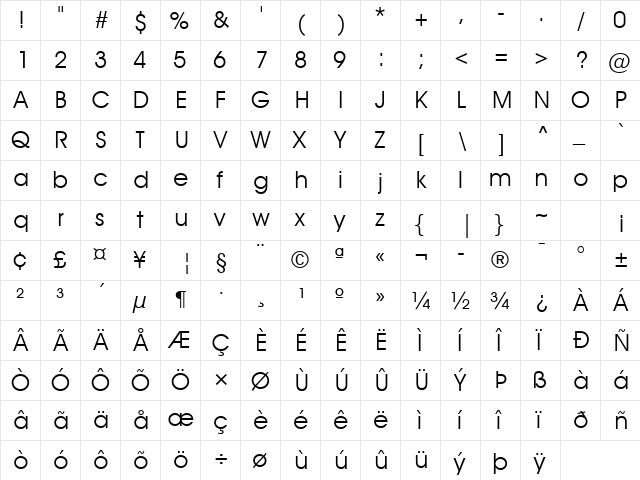
ITC Avant Garde SWA Book
Design Context for ITC Avant Garde SWA Typeface
ITC Avant Garde SWA takes a measured approach to typography — its balanced proportions and neutral character make it a reliable workhorse for both digital and print work.